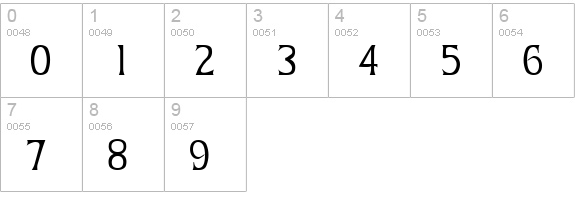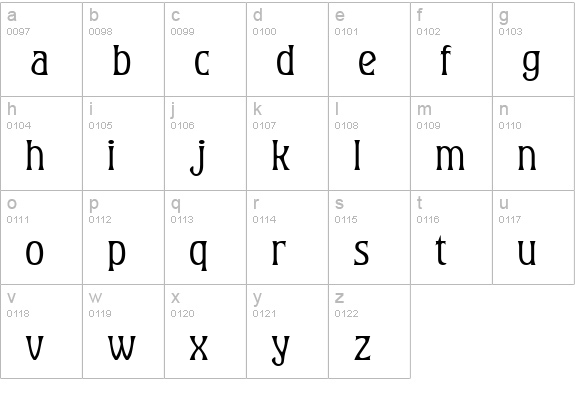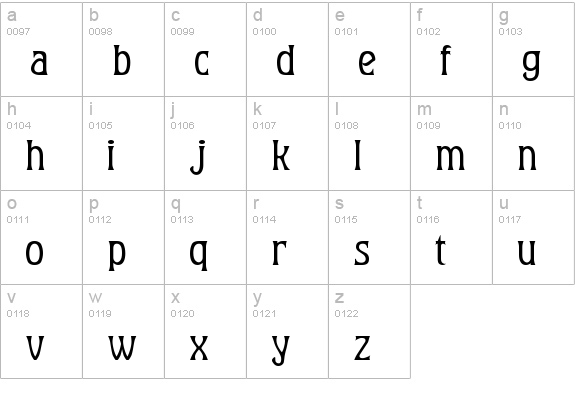
Baumfuss Font Details
Baumfuss is a versatile and modern font that adds a touch of elegance and sophistication to any design project. With its unique combination of clean lines and subtle curves, Baumfuss is perfect for creating eye-catching logos, branding materials, invitations, and more. This font exudes a sense of creativity and professionalism that will make your designs stand out from the crowd. Best of all, Baumfuss is available for free download at FontsMarket.com. Whether you're a seasoned designer looking to expand your font collection or a beginner searching for the perfect typeface for your next project, Baumfuss is a fantastic choice. Download it today and unleash your creativity with this stunning font!